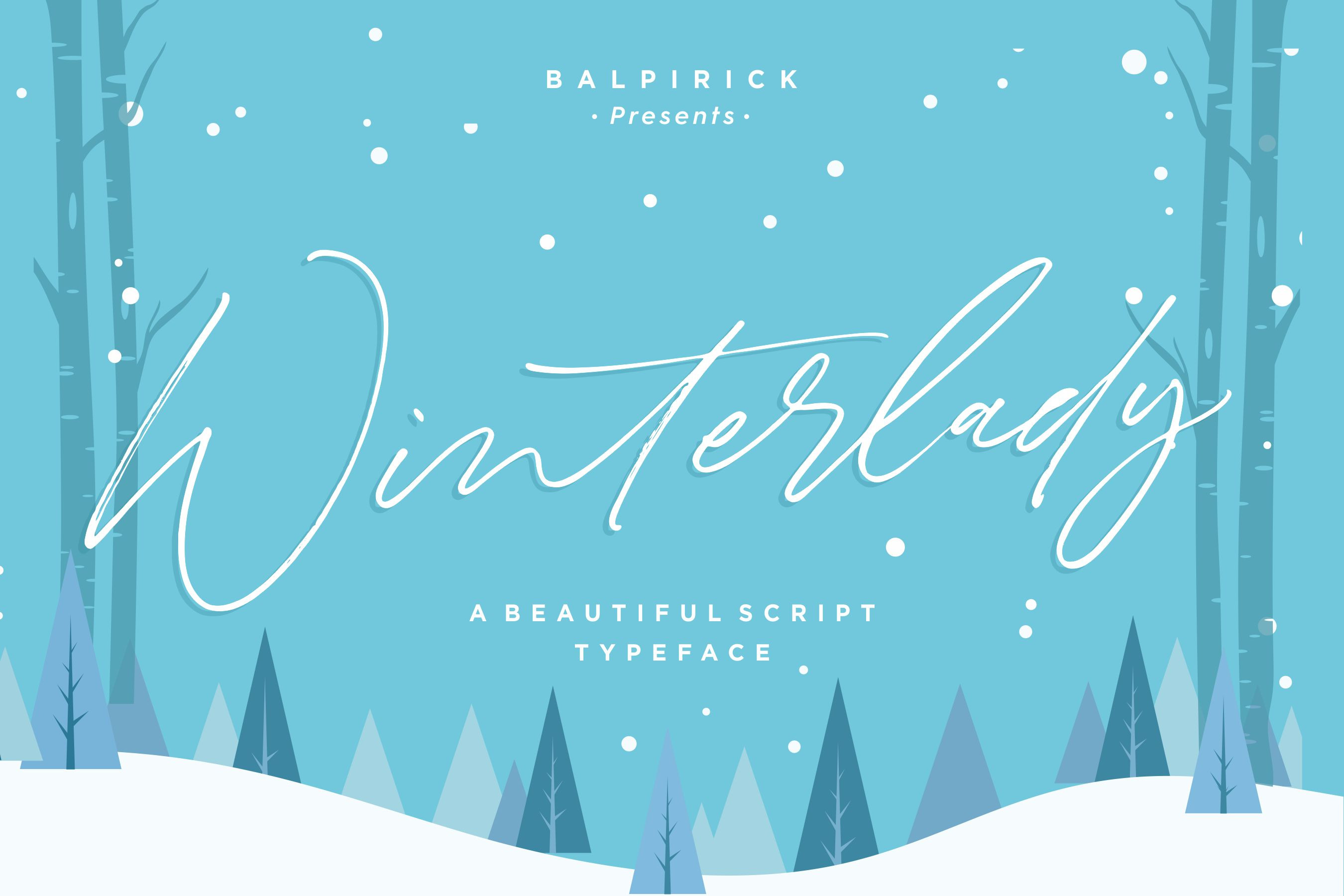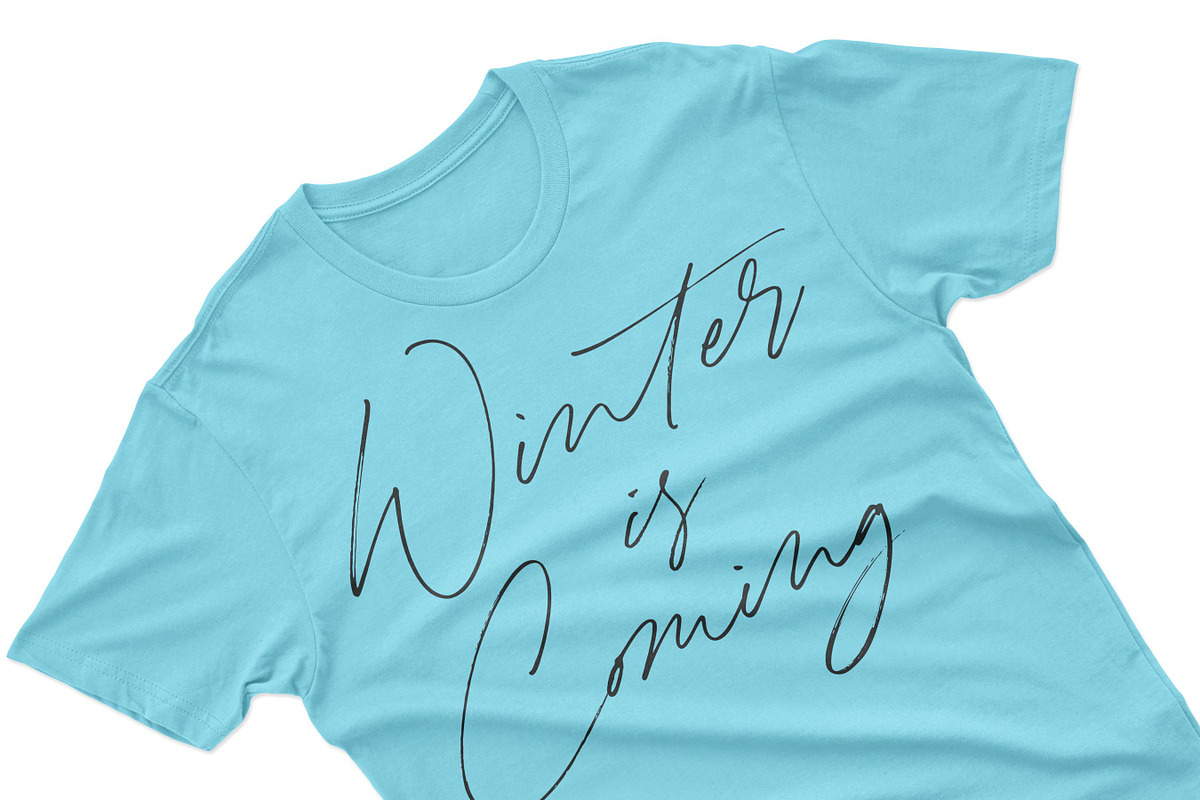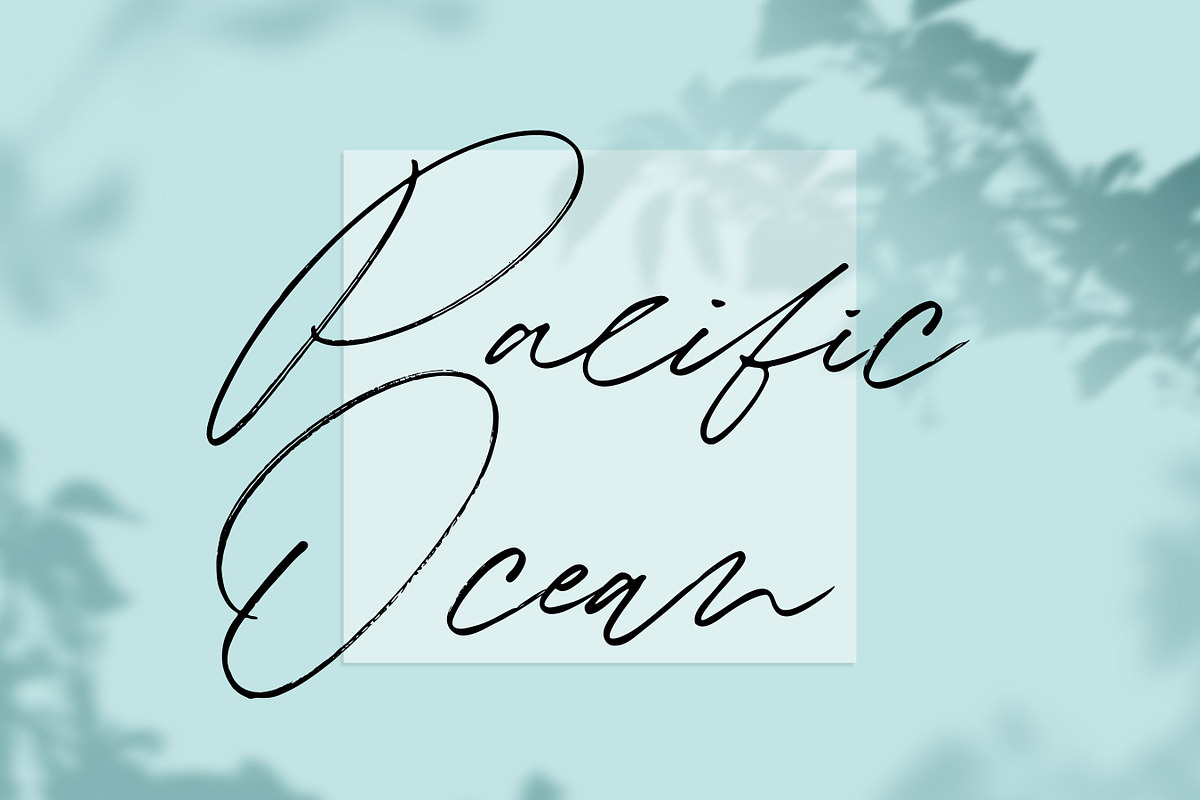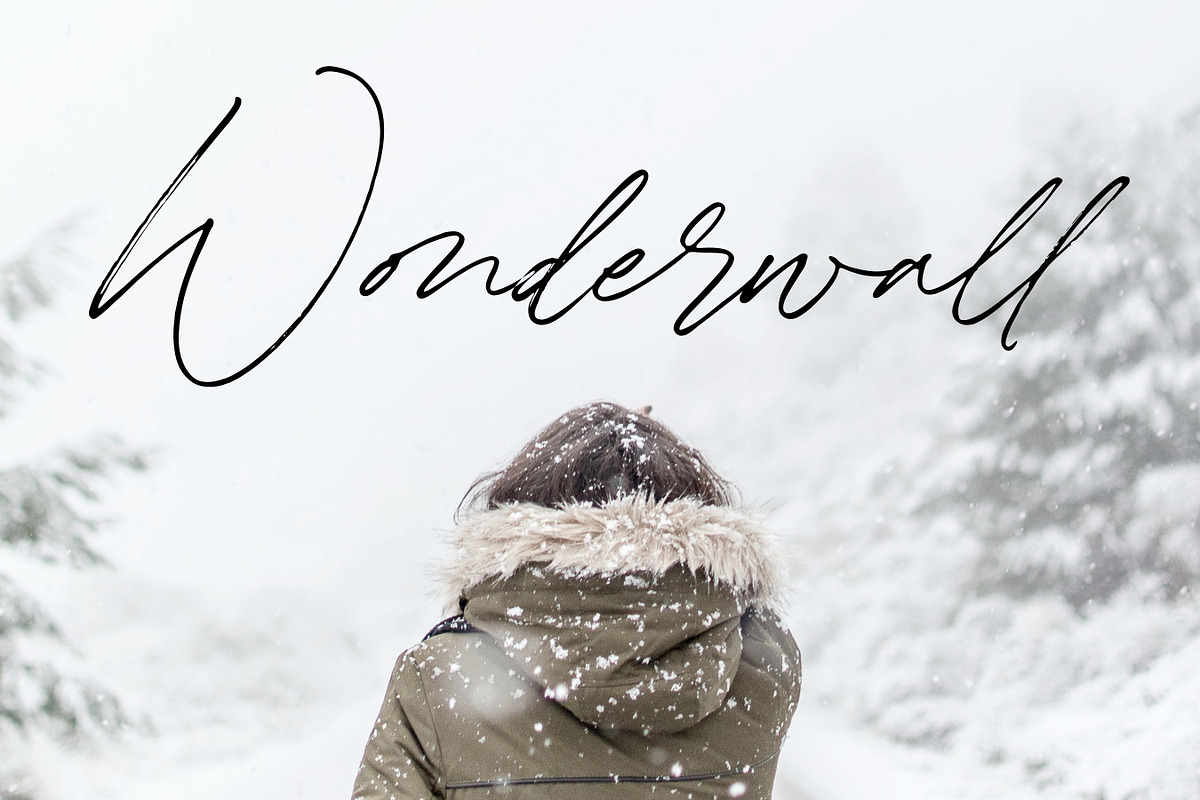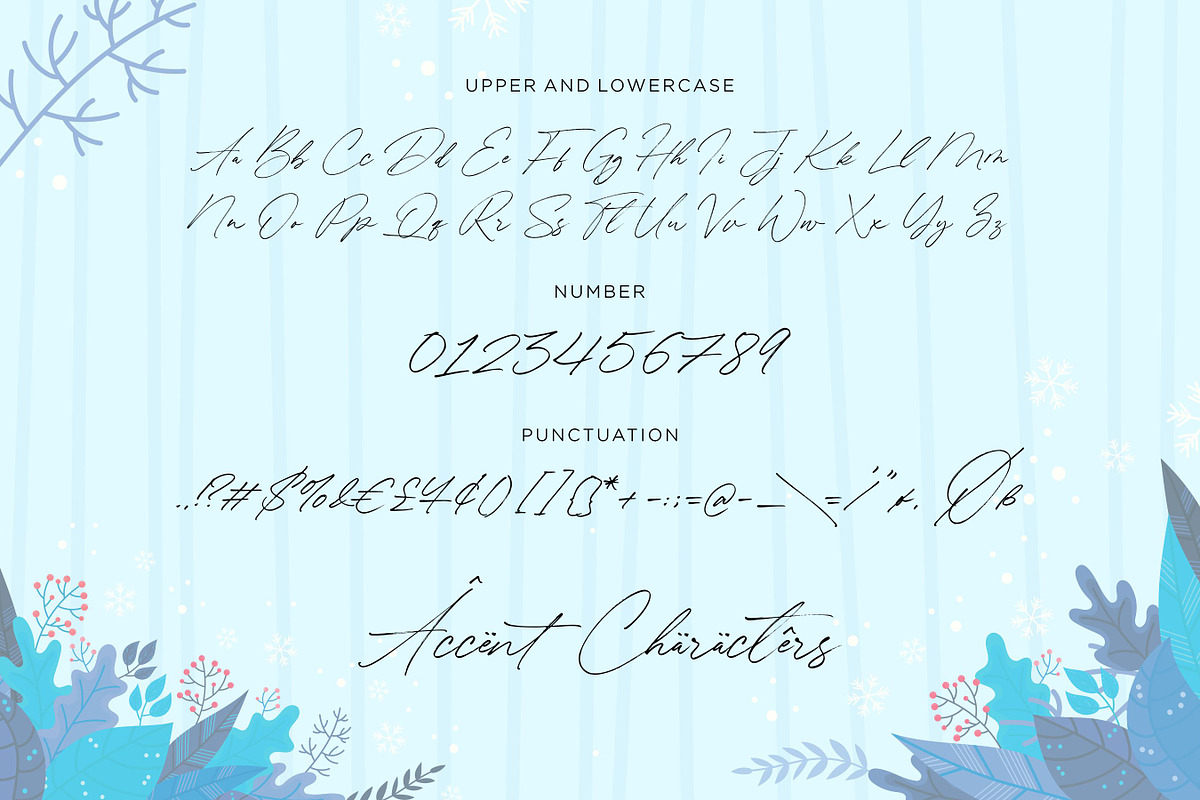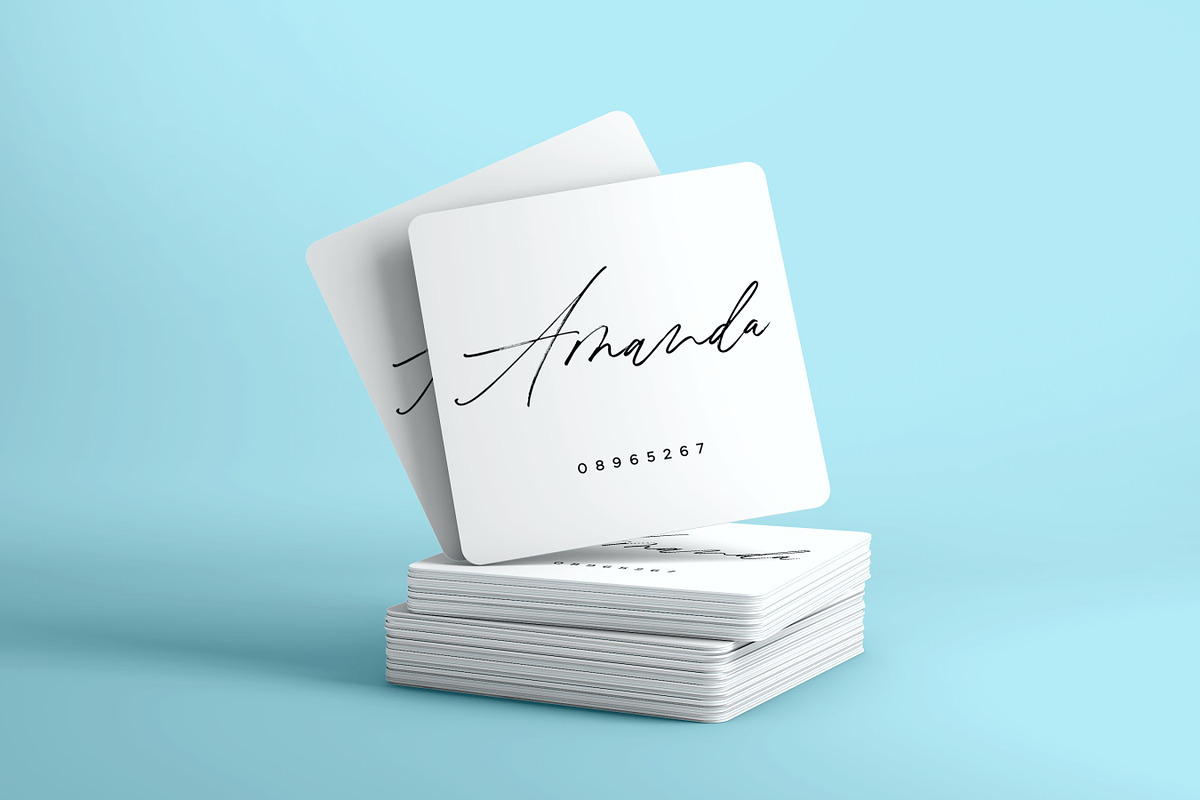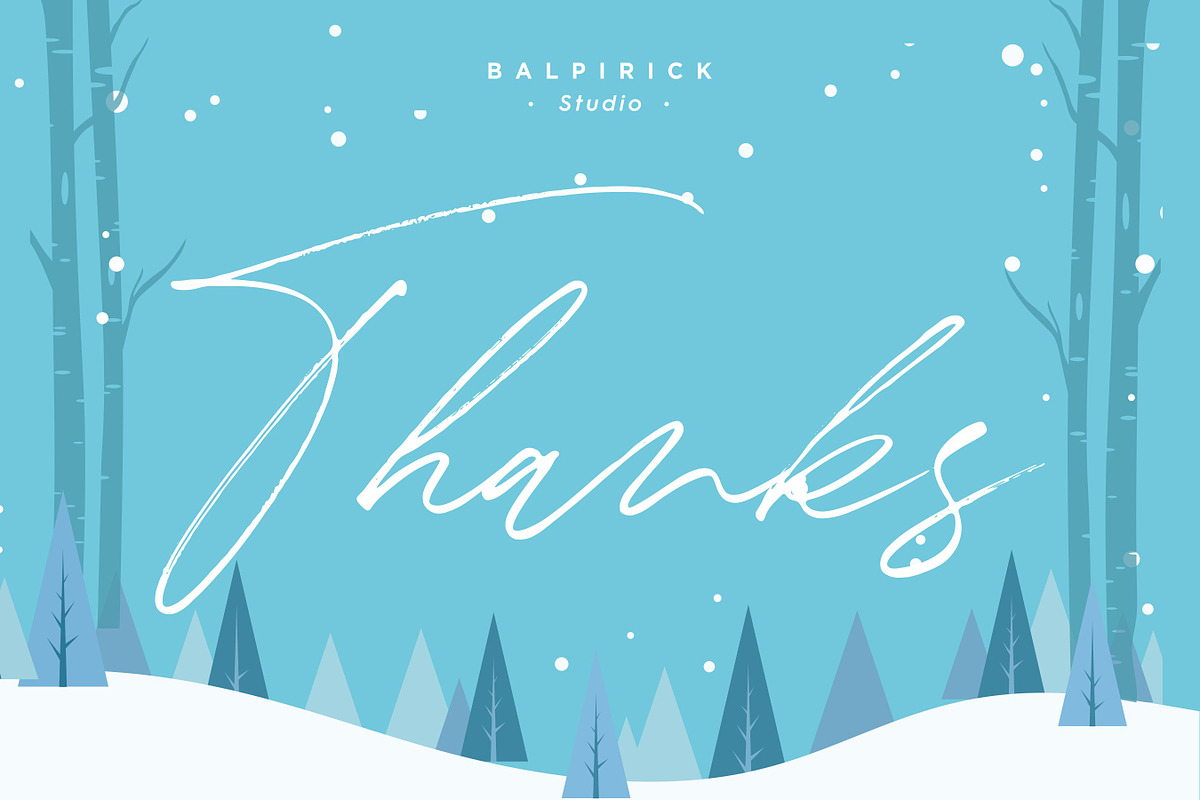
Winterlady- Beautiful Script Font
Proudly Present, Winterlady Font
Winterlady is inspired by classic typography and brings its own unique style to any design project. This fantastic script font is best suited for headlines of all sizes, as well as for blocks of text that have both maximum and minimum variations. Whether it’s for web, print, moving images or anything else – Winterlady will look spectacular.